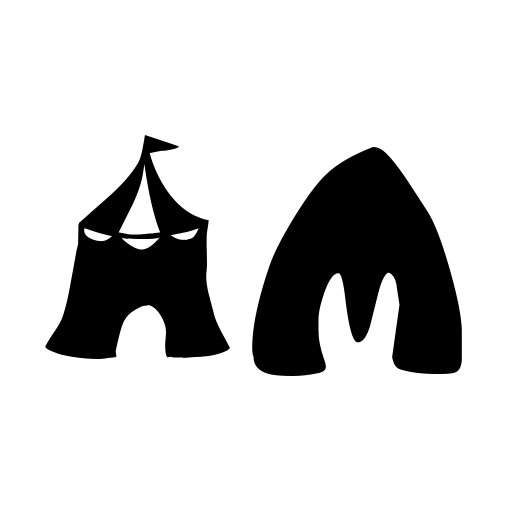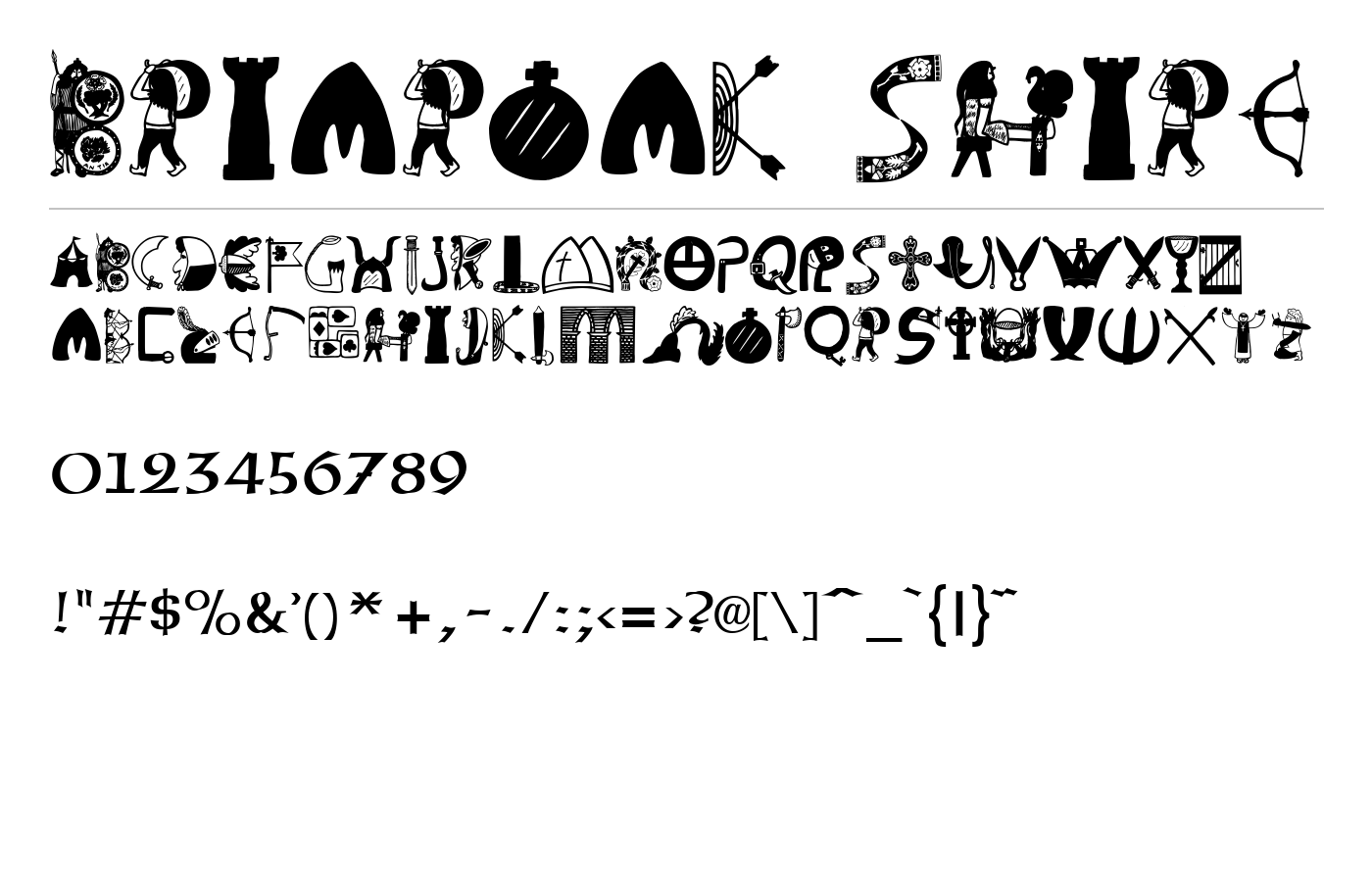
Briaroak Shire is a highly decorative display font that blends whimsical, medieval-inspired illustrations with letterforms to create a unique, storybook charm. Its bold, playful characters are filled with intricate, thematic details, making it perfect for fantasy or adventure branding, children's books, and creative headlines where a captivating and imaginative atmosphere is desired. This font stands out best in large sizes where its artistic elements can be fully appreciated and adds a distinctive, enchanting personality to any design project.
Briaroak Shire Font
About Briaroak Shire Font